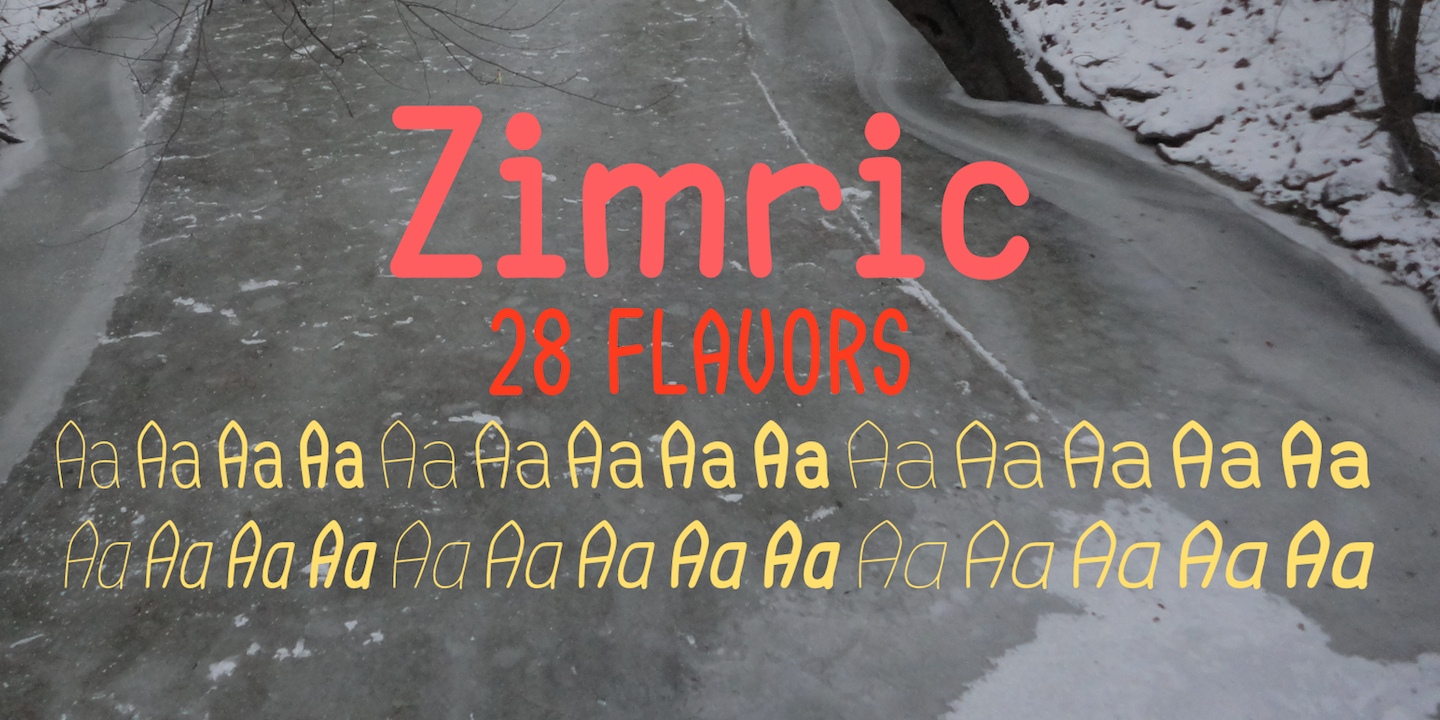
Zimric Font is perfect for modern tech company branding, innovative software interfaces, cutting-edge digital products, futuristic startup communications, contemporary web design projects, advanced technology presentations, sleek mobile applications, progressive corporate identities, modern architectural signage, and forward-thinking business materials. This sophisticated typeface excels in applications where technological innovation and contemporary elegance need to be communicated with refined modernism and digital sophistication that embodies the essence of next-generation design thinking and progressive technological advancement.
What makes Zimric Font exciting is its remarkable ability to capture the essence of technological sophistication through its precisely engineered letterforms that project the kind of refined innovation and systematic precision that defines cutting-edge technology and contemporary design excellence. The font embodies the spirit of digital advancement with its clean construction and tech-inspired proportions that suggest the seamless integration of form and function found in well-designed technology products. Its meticulously crafted character details and progressive personality create an atmosphere of innovative confidence that resonates with technology professionals, forward-thinking businesses, and design-conscious organizations who understand the importance of contemporary visual communication in competitive digital markets.
The Zimric Font family typically includes Light, Regular, Medium, and Bold weights, each maintaining the signature technological characteristics and modern sophistication. Some versions offer extended character sets with technical symbols, alternative stylistic elements that enhance the digital aesthetic, and specialized variants optimized for screen display and user interface applications. The family may also include condensed styles for efficient digital layouts and display cuts designed for maximum impact in technology and innovation communications requiring contemporary professional presentation.
Whether you're creating technology brand identities, digital product interfaces, or innovative business communications, Zimric Font Free Download delivers the perfect technological sophistication your modern projects deserve. Its tech-inspired character and contemporary styling make it an invaluable asset for technology companies, digital agencies, and progressive businesses working in software development, digital innovation, and modern technology sectors where authentic technological credibility and contemporary design excellence are essential for establishing leadership in rapidly evolving digital markets and competitive technology landscapes.